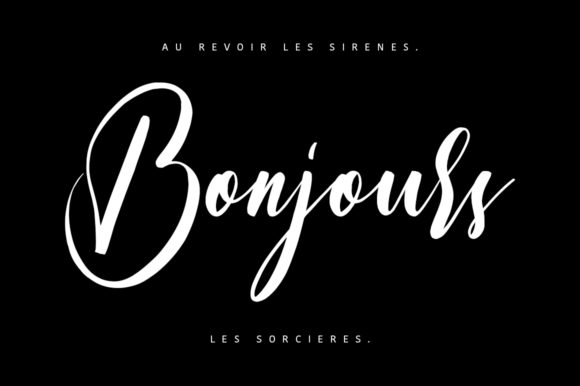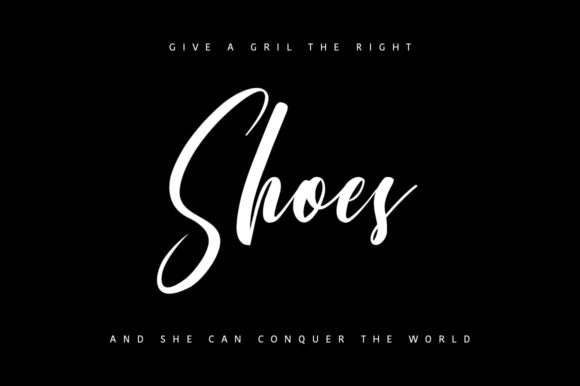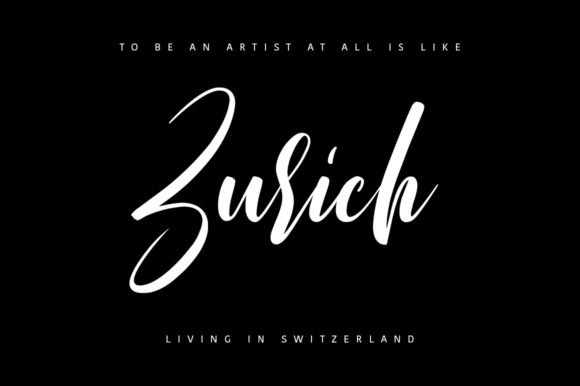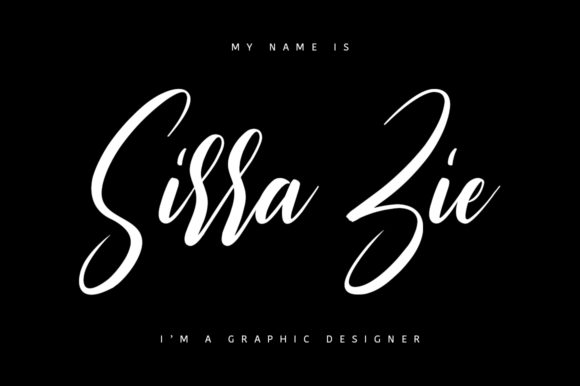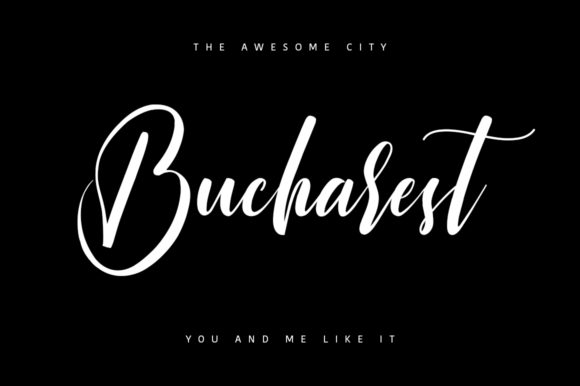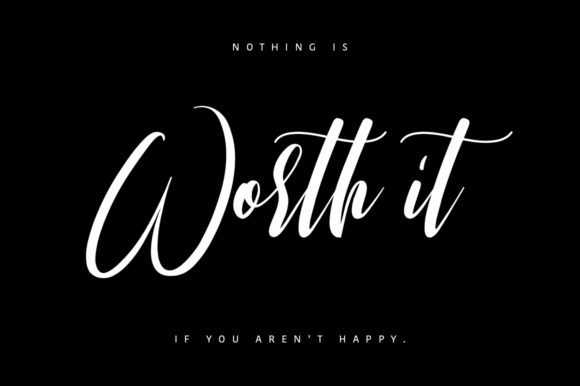
Introduction to Rushfor Font
Remember the moment when you stumbled upon the perfect design inspiration? The one that sparked an idea for a creative project, and you couldn’t wait to dive in and bring it to life? For designers, this moment is what makes it all worthwhile – and that’s exactly what the Rushfor Font can offer.
As a relaxed and timeless handwritten font, Rushfor Font is the ultimate design resource for any project that requires a touch of elegance and sophistication. Whether you’re crafting gorgeous wedding invitations, creating beautiful stationery art, or designing eye-catching social media posts, Rushfor Font is the perfect companion to elevate your work.
With its incredibly versatile style and transparent background, Rushfor Font is a high-quality design element that can be used in a variety of creative ways. And the best part? It’s available for free download, making it an invaluable asset for designers looking to add a personal touch to their projects without breaking the bank.
Rushfor Font
- High-quality design resource featuring a unique, modern font style ideal for creative projects.
- Features a clean, elegant design with precise lines and curves, suitable for both personal and commercial use.
- Includes a range of font sizes, from 12 to 72 points, with a resolution of 300 DPI for high-quality output.
- Designed to be versatile and adaptable, making it an excellent choice for various creative projects, from logos to typography.
- Perfect for designers looking for a free, high-quality design resource to elevate their creative projects.
Honest Review: Rushfor Font
I recently had the chance to work with the Rushfor Font for a creative project and was quite impressed. One of the things that stood out to me was its high quality and unique design. It’s perfect for a design resource that adds a touch of sophistication to any project.
- Transparent background makes it easy to work with
- Only comes in a few weights, which can be limiting for some projects
- No bold or italic versions available
- May not be suitable for projects that require a lot of text
Overall, I was impressed with the Rushfor Font and would definitely consider using it again in the future. While it has some limitations, its unique design and high quality make it a valuable design resource.
Rushfor Font
Tips for Getting the Most Out of Rushfor Font
Experiment with different font sizes, styles, and colors to create unique and eye-catching designs. Use the font in combination with other design elements, such as graphics and images, to add depth and interest to your project. Don’t forget to save your font for future use by uploading it to your design resource library.
Common Use Cases for Rushfor Font
The Rushfor Font is perfect for creative projects, such as logos, graphics, and presentations. Its high-quality design and transparent background make it ideal for use in a variety of contexts, from business to entertainment. Whether you’re working on a free download project or a paid design, the Rushfor Font is a valuable design resource to have in your toolkit.
Alternatives to Rushfor Font
Aurora Font is a sleek, modern sans-serif font perfect for creative projects that require a clean and sophisticated look. It features a transparent background, making it ideal for designing logos and branding materials.
When to use: Aurora Font is suitable for high-end branding projects, magazines, and corporate websites.
Comparison to Rushfor Font: Aurora Font has a more minimalist and elegant feel compared to Rushfor Font, which is bolder and more vibrant.
Q: Is the Rushfor Font suitable for a high-quality creative project?
Yes, the Rushfor Font is designed to be a high-quality design resource, making it suitable for a wide range of creative projects, from print to digital applications. Its clean and modern design makes it an excellent choice for branding, advertising, and other high-end creative projects.